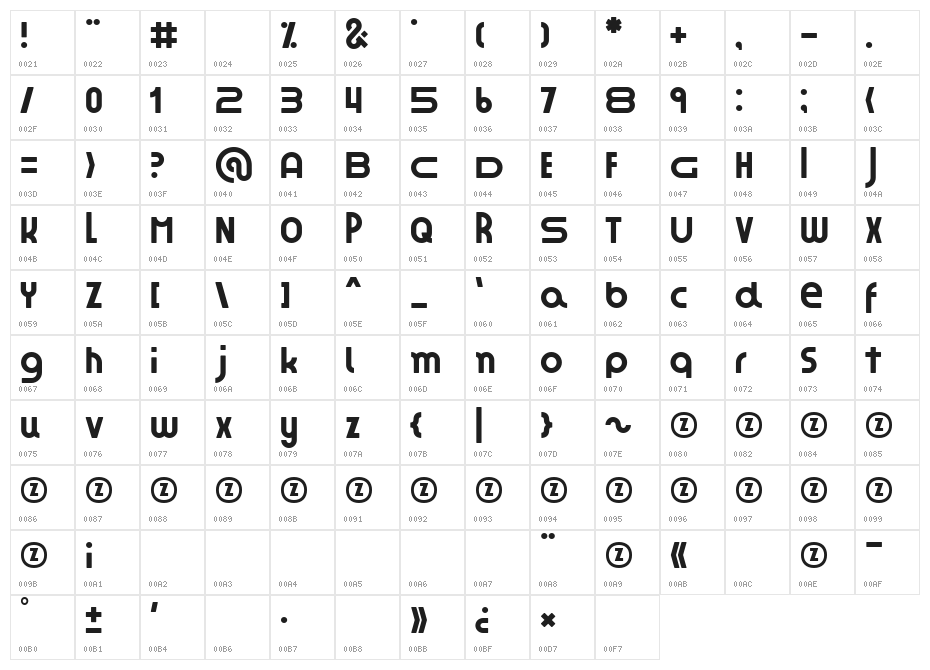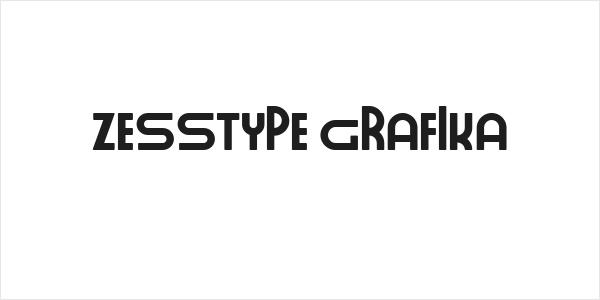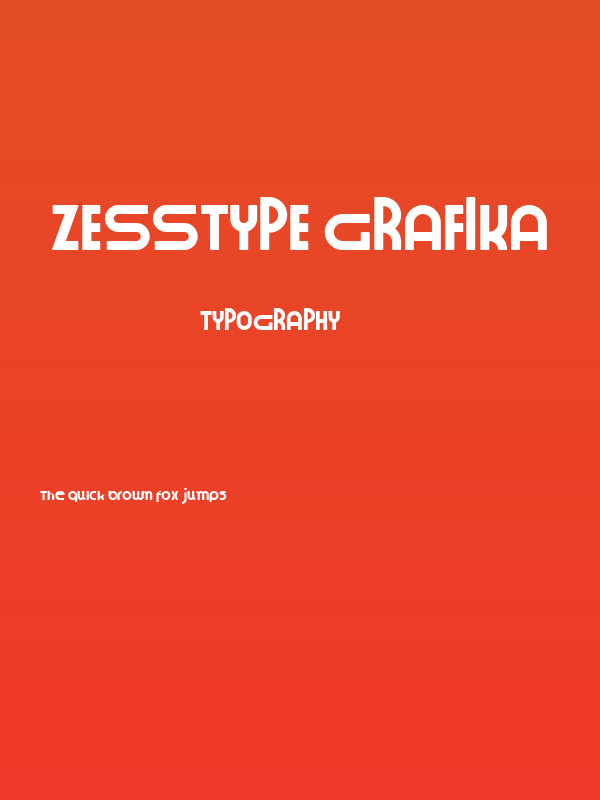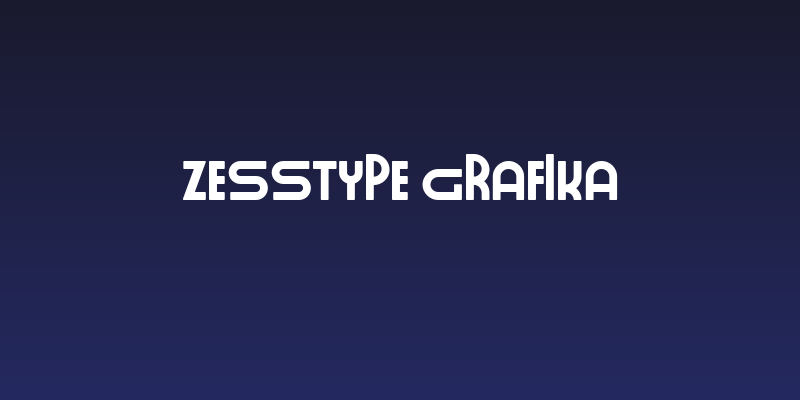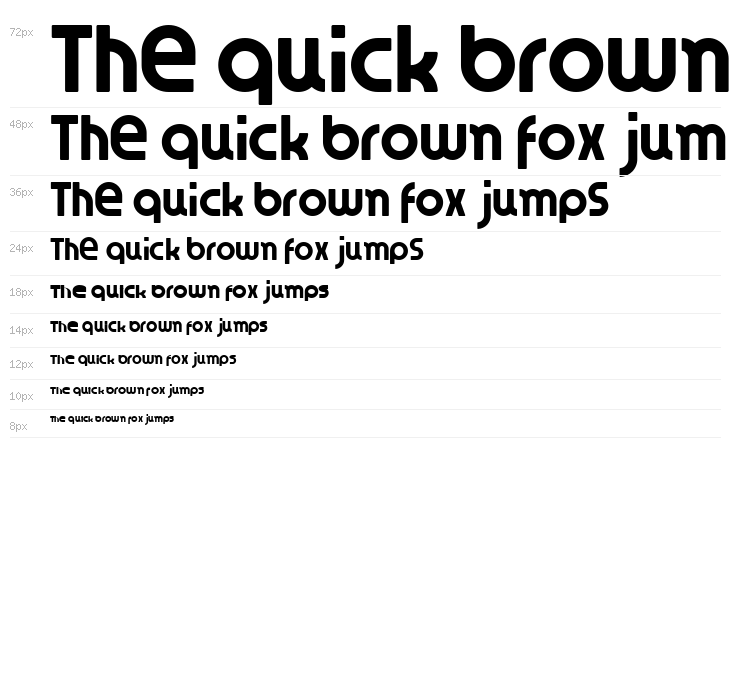
ZESSTYPE GRAFIKA Font
This font features a bold and geometric design with a modern flair. The characters are constructed with thick, uniform strokes, giving them a strong presence. The rounded edges and consistent line weight contribute to a cohesive and contemporary look. The uppercase letters are particularly striking, with a blocky appearance that enhances readability. Lowercase letters maintain the same boldness, ensuring uniformity across text. The numerals are clear and distinct, matching the overall style of the alphabet. Special characters are well-integrated, maintaining the geometric theme. This font is ideal for projects that require a modern and impactful typeface.
Proposed ProjectsIdeal for branding, posters, headlines, and digital media where a strong visual impact is needed.